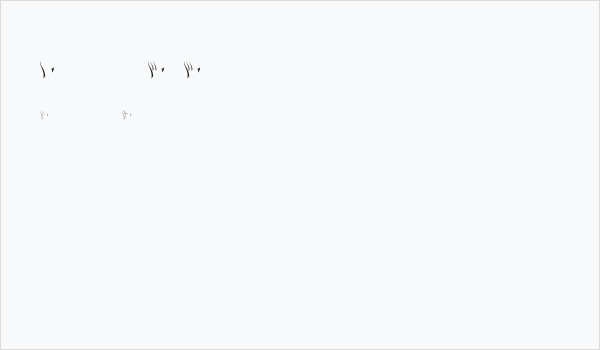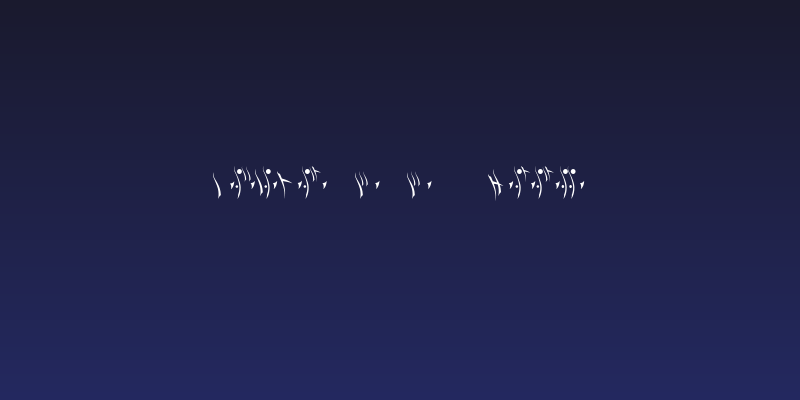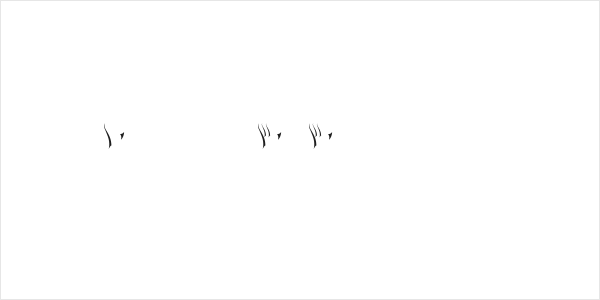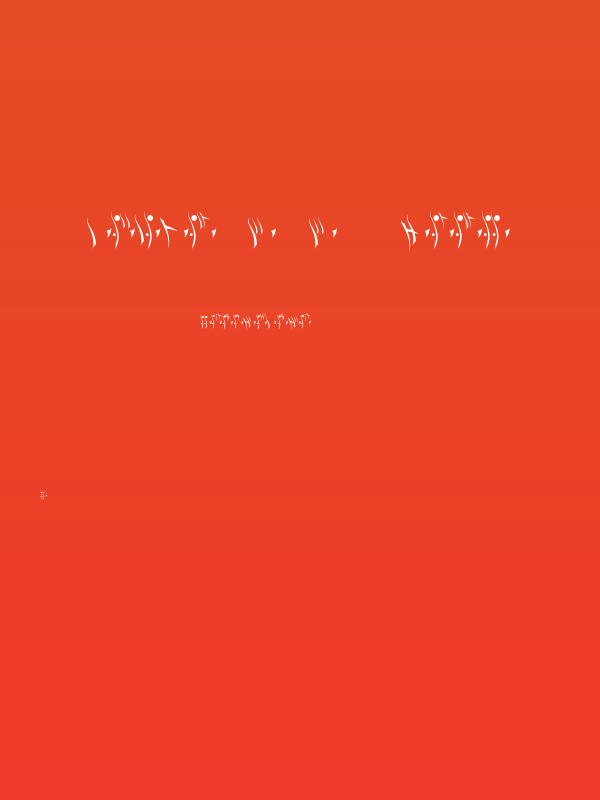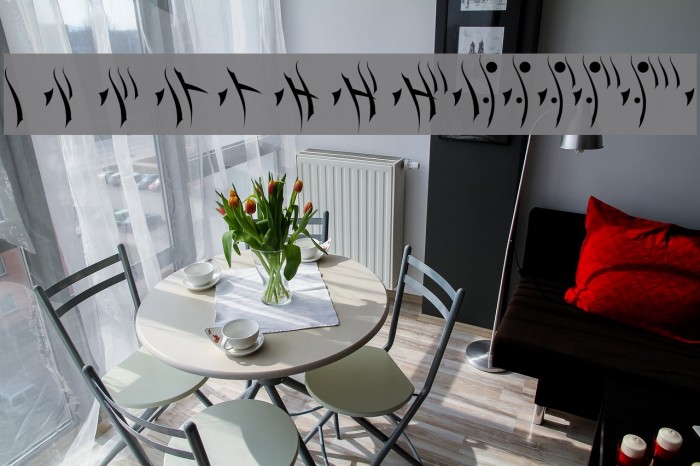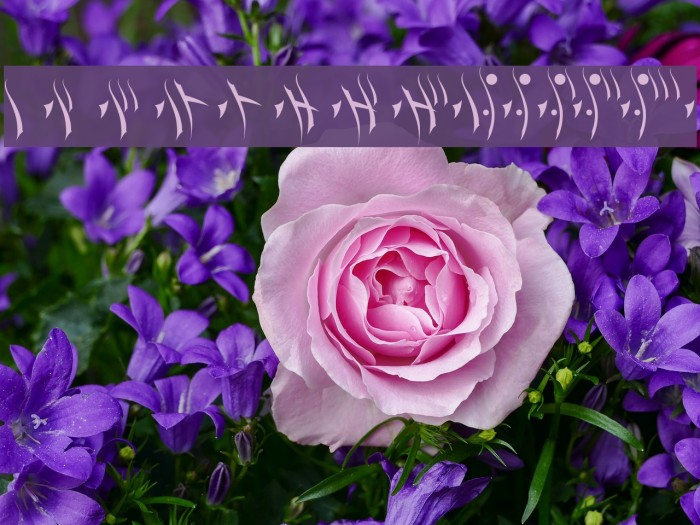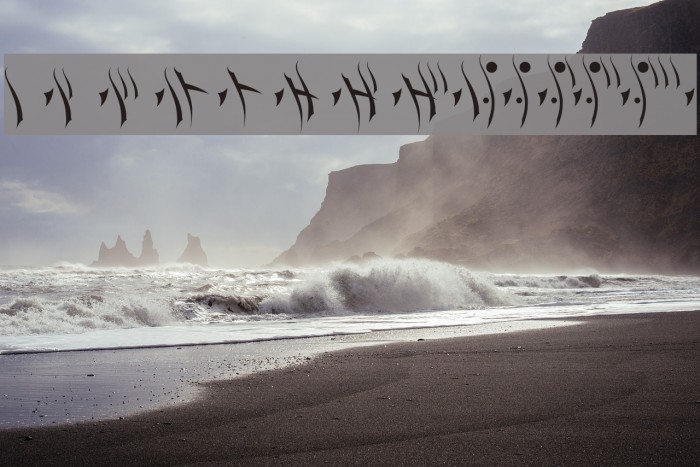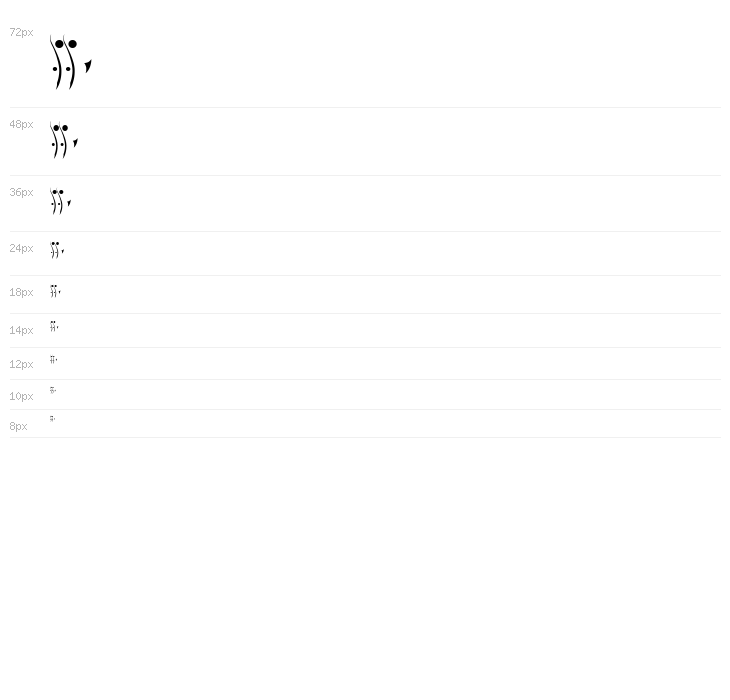
Alien C&C3 font Font
Alien C&C3 font Description
This font features a unique and abstract design, reminiscent of alien or extraterrestrial scripts. The characters are composed of sharp, angular lines and curves, creating a mysterious and futuristic appearance. Each letterform is distinct, with varying heights and widths, contributing to an overall sense of dynamism and movement. The font lacks traditional serifs or uniformity, instead embracing an artistic and unconventional style. Its intricate design makes it suitable for creative projects that aim to evoke a sense of otherworldliness or fantasy.
| Overall Style | Futuristic, Abstract |
| Use Case | Logos, Posters, Titles |
| Proposed Projects | Ideal for sci-fi themed projects, video game graphics, movie posters, or any creative work requiring a mysterious or extraterrestrial aesthetic. |